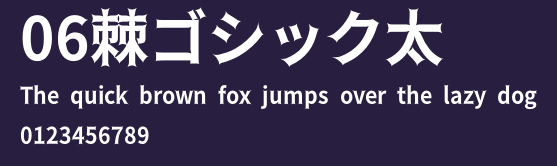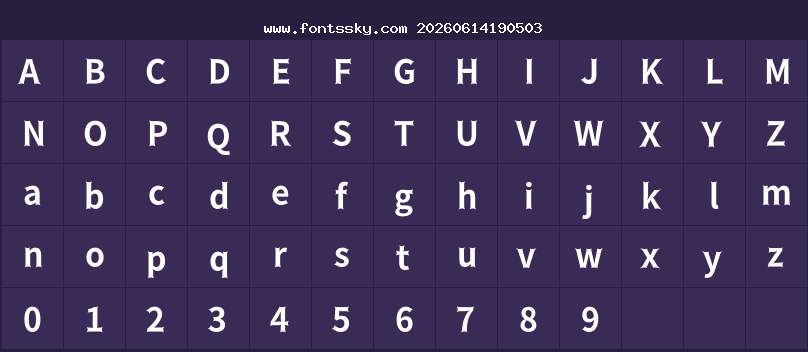
• Font Name: 06棘ゴシック太
• Full Font Name: 06棘ゴシック太
• PostScript Name: 06TogeGothic-Bold
About 06棘ゴシック太.otf
06棘ゴシック太.otf is a modern, elegant sans-serif font designed for ultimate readability and visual harmony. Perfect for branding, headlines, web design, and print materials.